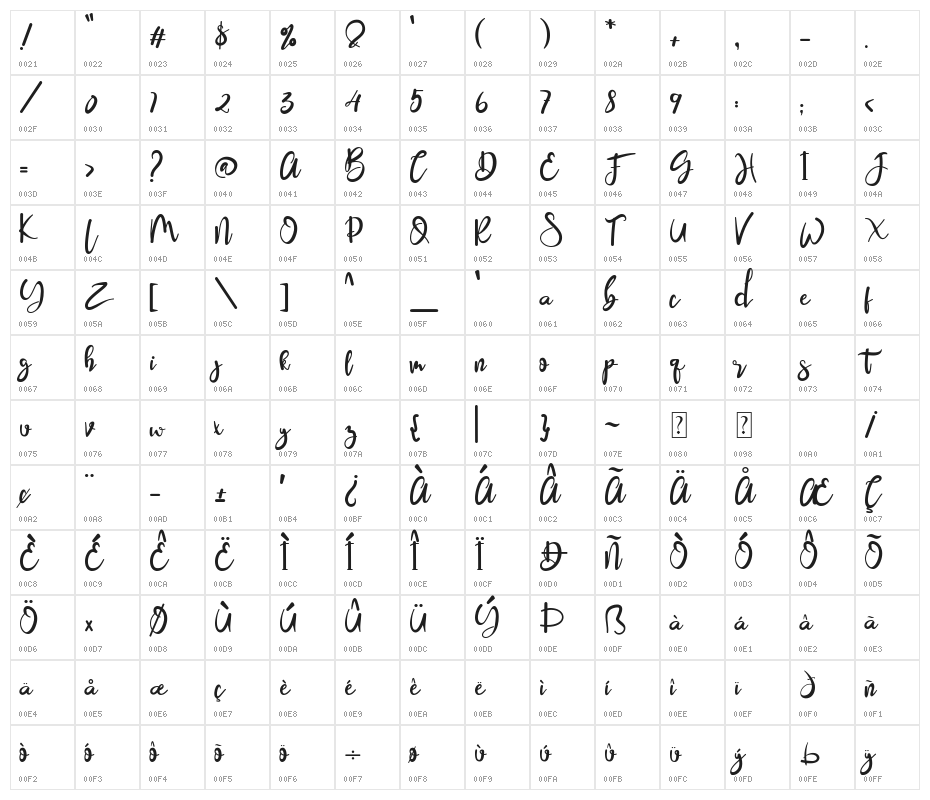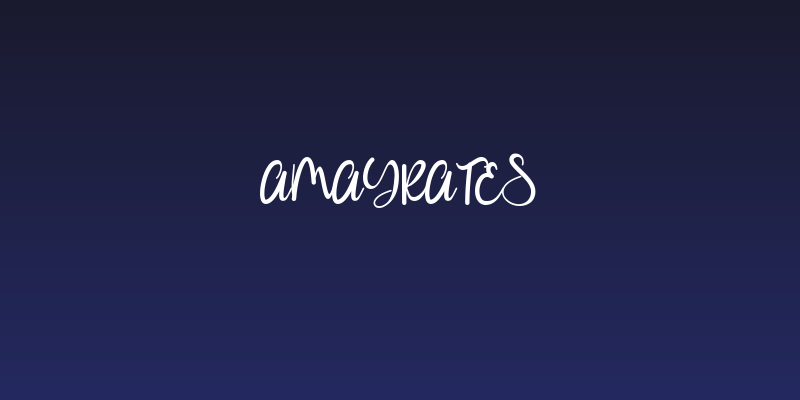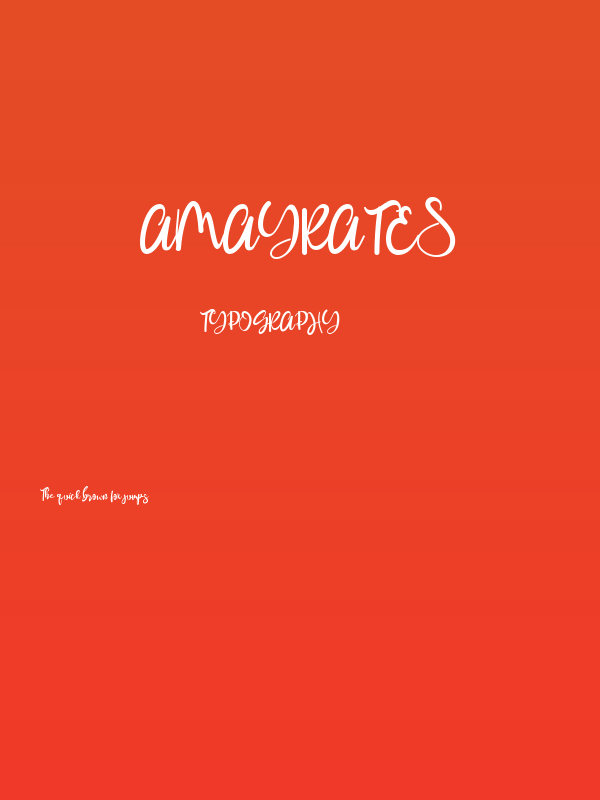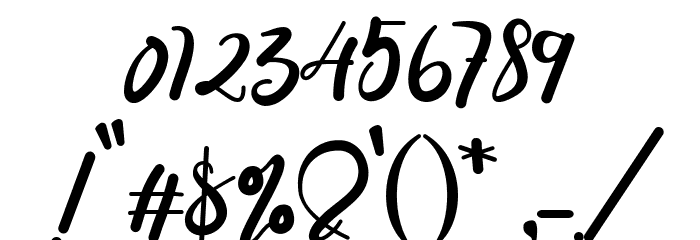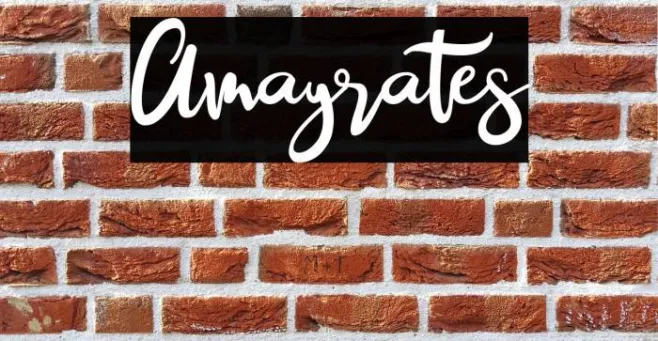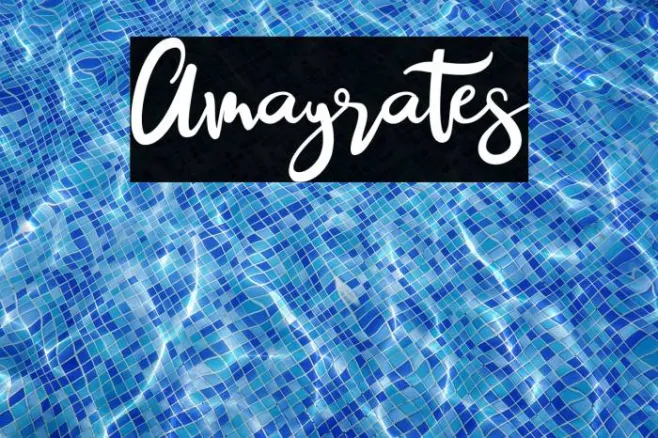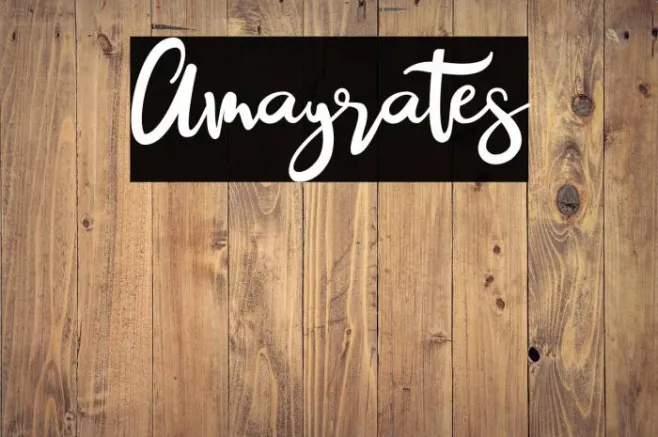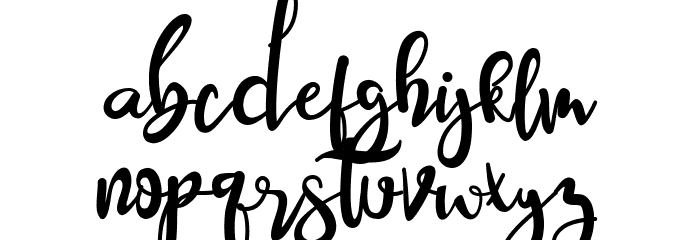
Amayrates Font
Amayrates Description
This font features a dynamic and expressive handwritten style, characterized by its fluid and flowing letterforms. The uppercase letters exhibit a playful and artistic flair, with varying stroke widths that add a sense of movement and energy. The lowercase letters maintain a consistent style, complementing the uppercase with their own unique charm. Numbers and special characters are crafted with the same attention to detail, ensuring a cohesive look throughout. The overall appearance is both modern and whimsical, making it suitable for creative projects that require a personal touch.